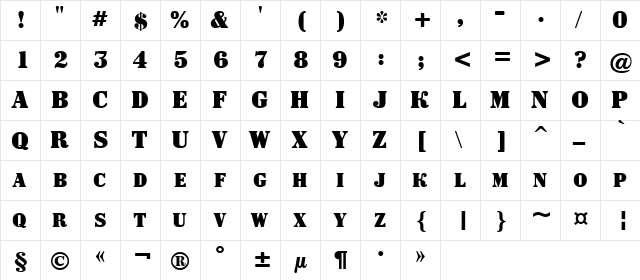
a_SignboardCps Bold Font Preview
a_SignboardCps Bold
a_SignboardCps Bold Font Details
Design Context for a_SignboardCps Typeface
a_SignboardCps is a composed and adaptable typeface that performs quietly and consistently across a wide range of design contexts. Its bold stroke weight gives it real presence on the page.